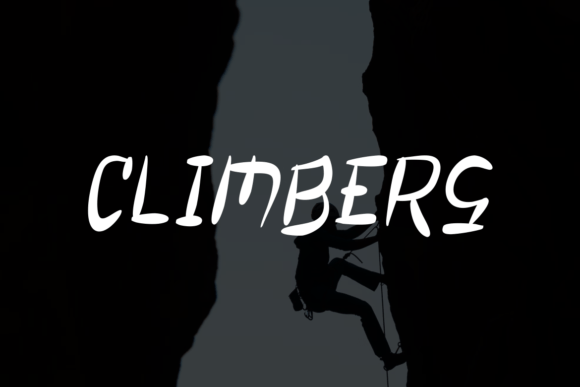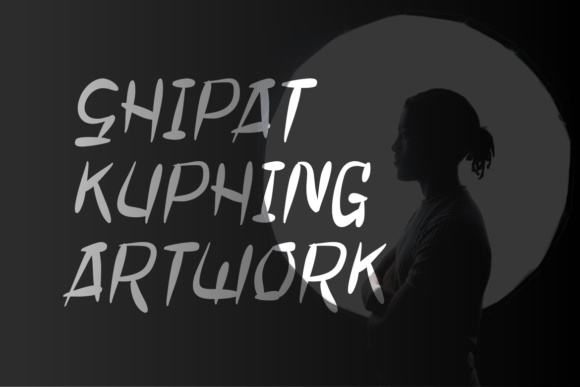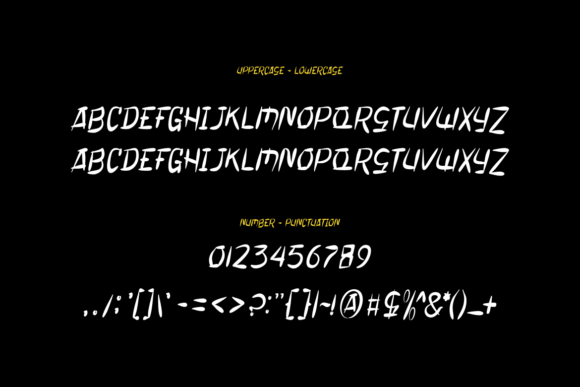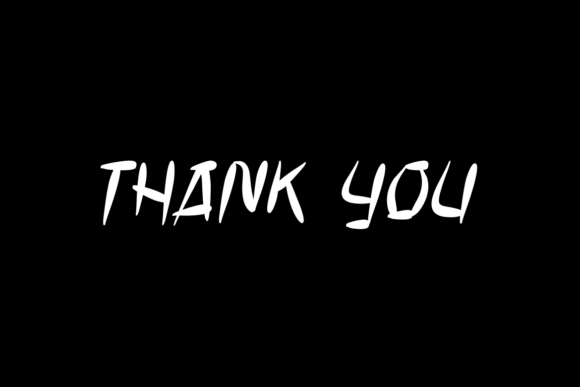
Introduction to Shipat Kuphing Font Font
Fonts play a crucial role in design, and the Shipat Kuphing Font font is a typeface that brings both character and versatility to any project. Whether you’re working on a branding project, a website, or a print design, the Shipat Kuphing Font font offers a unique style that can elevate your work.
Shipat Kuphing – Font Modern Font is a bold and authentic display font.
The font is suitable for any branding project like logo, t-shirt printing, esport, and many more outstanding in a wide range of contexts.
Key Features of Shipat Kuphing Font Font
Why Choose Shipat Kuphing Font Font?
The Shipat Kuphing Font font is more than just a typeface – it’s a design tool that helps you communicate your message with style and clarity. Its unique character set and versatile design make it suitable for a wide range of applications, from elegant invitations to bold headlines.
With its carefully crafted letterforms and balanced proportions, the Shipat Kuphing Font font ensures readability and visual appeal across all mediums.
What makes Shipat Kuphing Font font special?
The Shipat Kuphing Font font stands out with its unique design, exceptional readability, and versatility across various design applications.